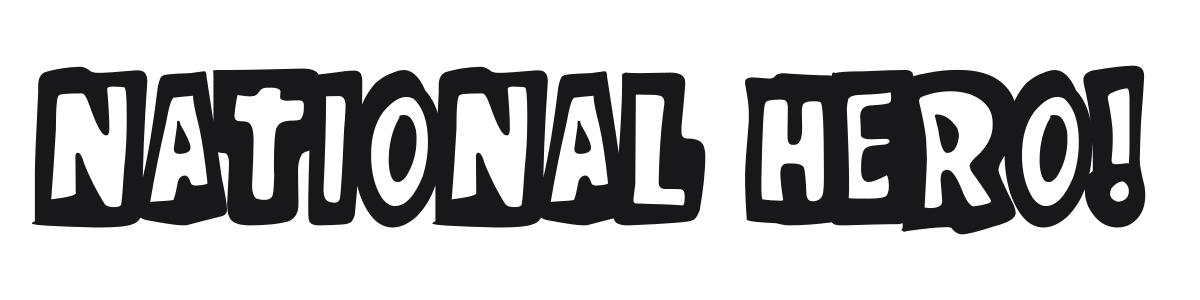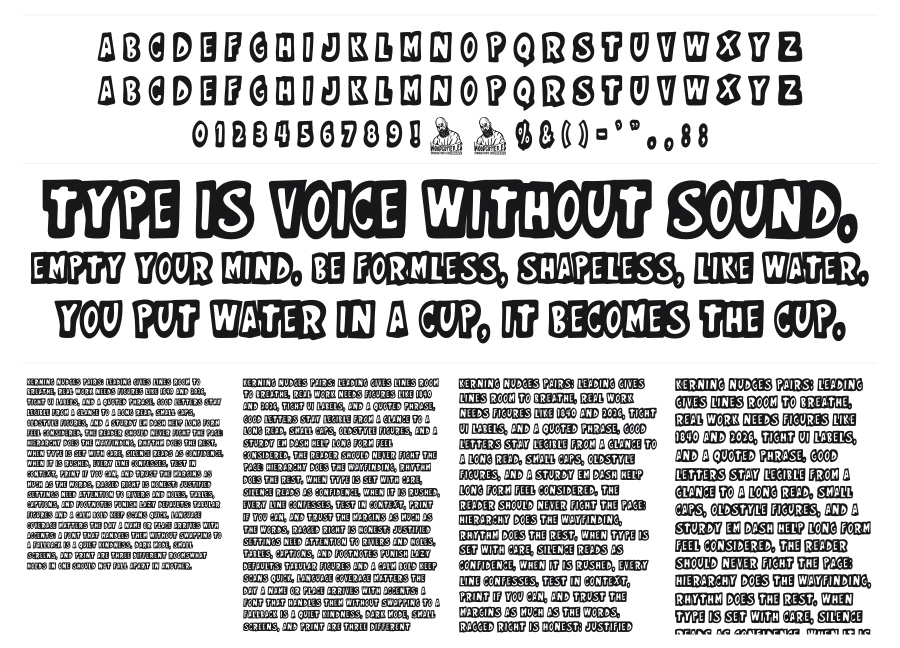
National Hero!
National Hero! is a thick, hand-drawn comic display font built around heavy rounded strokes and deliberately rough outlines. The characters carry that inflated, chunky energy straight out of superhero lettering, with just enough irregularity to feel human rather than digital. It works loud and proud at large sizes on posters, merch, and anything that needs to feel action-packed.